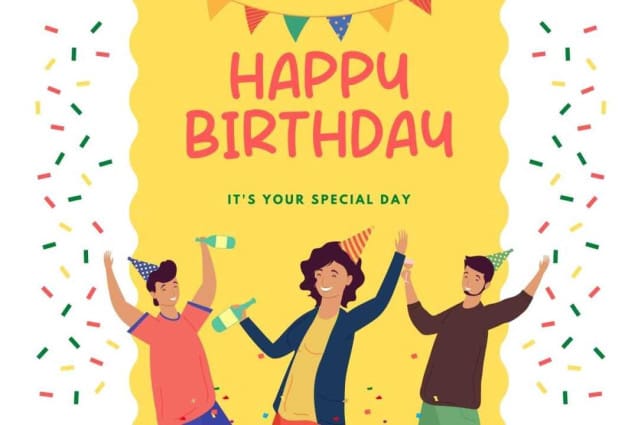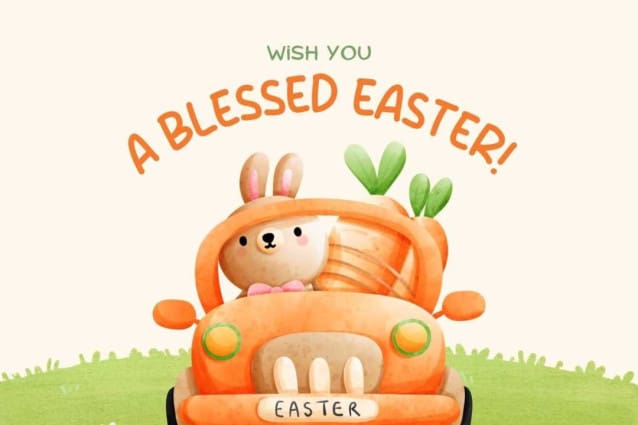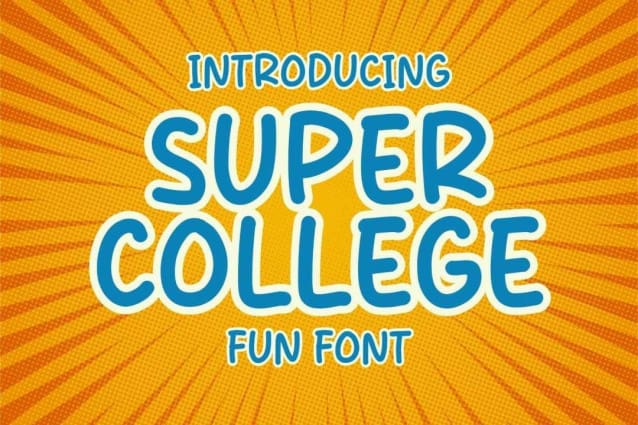
Super College Font
Super College Font, is a minimalist handwritten comic font. SuperCollege can be used in any works such as comic book, poster, school, flyer, book title, advertisement, social media content, logo and many more.